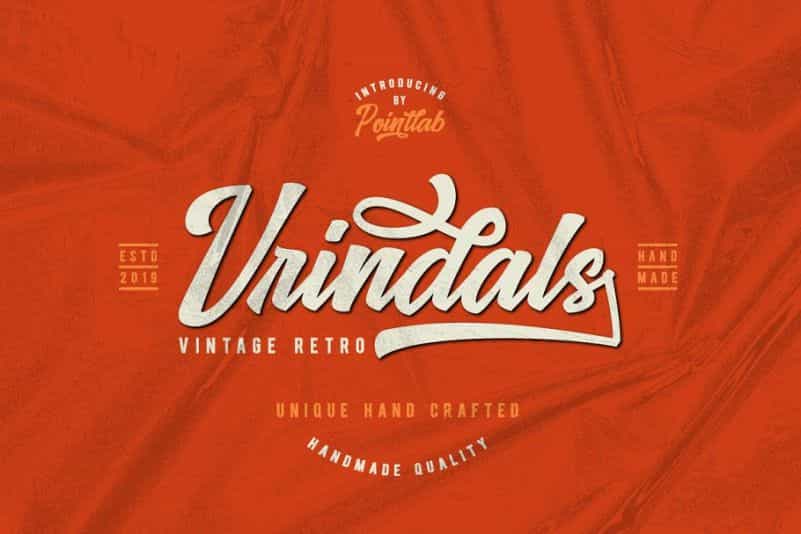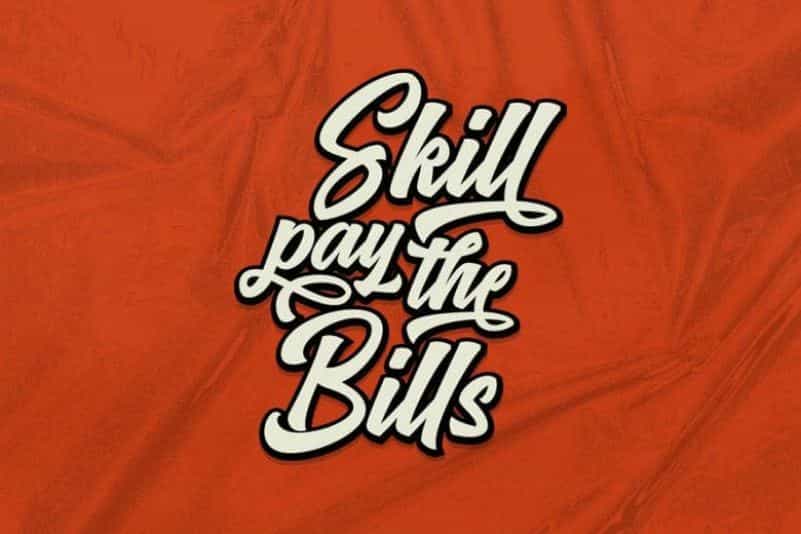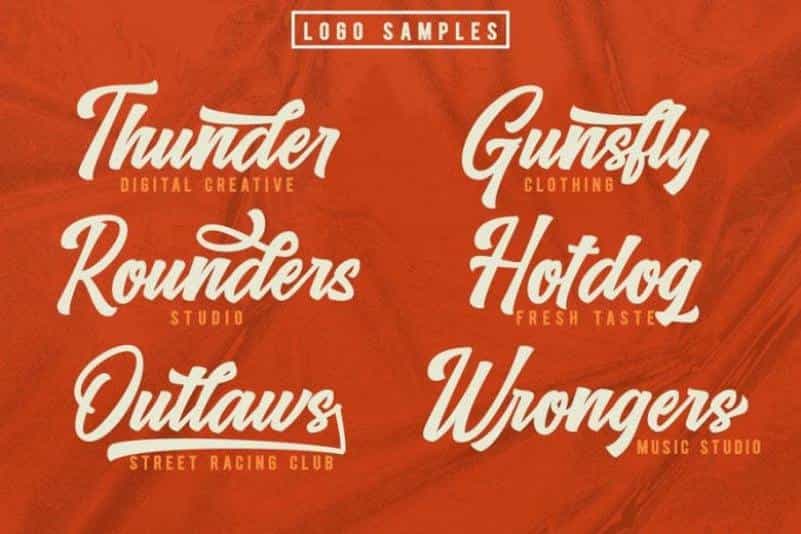
Discover Vrindals Script Font, part of the Calligraphy collection—a versatile and unique font perfect for adding a personal touch to your projects. Download it for free and enjoy crafting designs with style, from invitations to social media posts. This font is available exclusively for personal use, giving you the freedom to create without limits. Unlock your creativity with Vrindals Script Font today!
Vrindals Script Inspired by Retro style and combination with Hand Lettering style. I’m made with personality touch every single curve. I hope this can make inspire you from your work. and a very bouncy baseline It has a perfectly paired complimentary marker font, and a super handy set of bonus Swash. Ideal for logos, handwritten quotes, product packaging, header, poster, merchandise, social media & greeting cards.